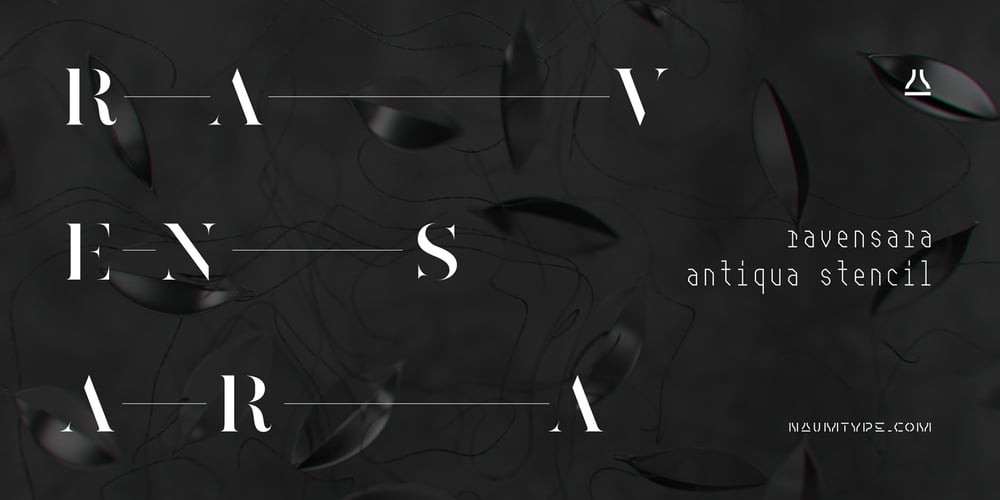
Ravensara Antiqua Stencil Font Family was designed by Peter Bushuev and published by NaumType. Ravensara Antiqua Stencil contains 9 styles and family package options. Ravensara Stencil – elegant high contrast classic serif. Ravensara family was born from the idea of taking the Didone concept to weight extremes. In light and medium weights Ravensara transmits a very elegant and high fashion style attitude, but stays readable in small sizes and can even be used as a text font. That makes it an ideal solution for projects, that needs an injection of contemporary sophistication. Heavy weights perfectly complement light and medium ones and also works great by their own in large sizes. It is a part of the Ravensara superfamily, united by the same anatomy, which currently also includes Ravensara Sans and Ravensara Serif. Ravensara Stencil is available in 9 weights, including Thin, Light, Regular, Medium, SemiBold, Bold, ExtraBold, Black and ExtaBlack. Ravensara font family, combining its classic origins and contemporary elegance, is a perfect choice for bold headlines, oversize typography, fashion logos, branding, identity, website design, album art, posters, advertising, etc. Ravensara Stencil extends multilingual support to Basic Latin, Western European, Euro, Catalan, Baltic, Turkish, Central European, Pan African Latin and Afrikaans.